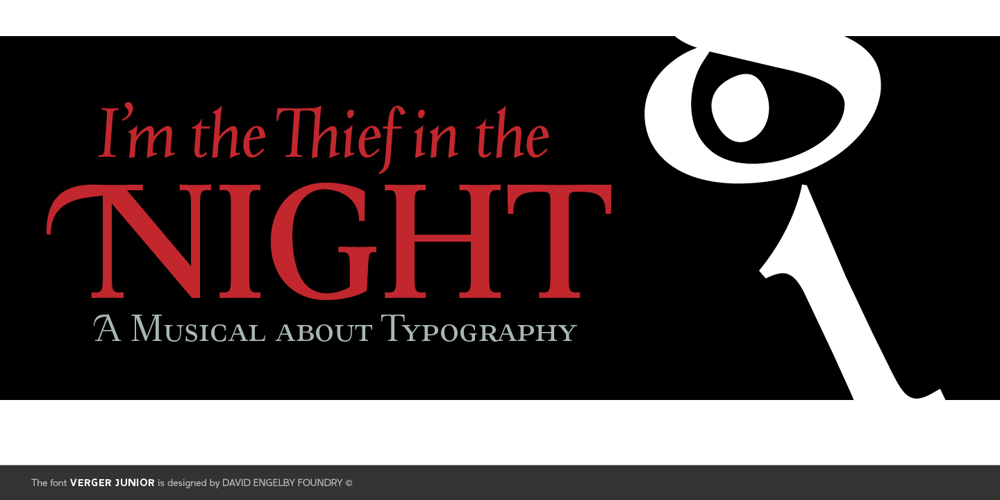
Verger Junior Font Family was designed by David Engelby and published by David Engelby Foundry. Verger Junior contains 6 styles and family package options. Verger Junior is a serif font designed for editorial design, books, and magazines. But not constrained by anything but your fantastic imagination!Verger Junior is a part of the Verger Font Family. Junior is a moderate redesign with a … specifik Ten-version for small text (footnotes, picture texts etc.) slightly narrower width a more conventional italic style new swash family Don’t let its classic look fool you. It’s a working horse!